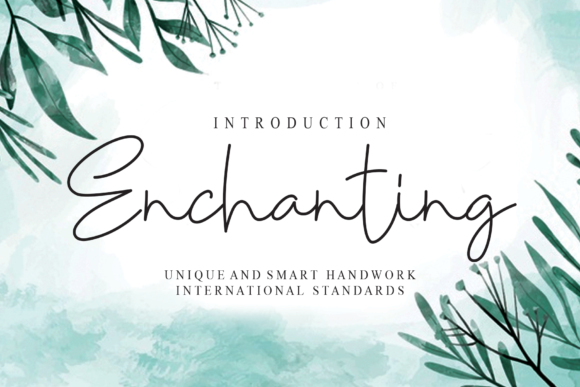
Enchanting Font
About Enchanting Font
Enchanting is a stylish and delicate script font. It has a clean, thin and smooth vibe and it will be a hit for any design that you want to add it to.